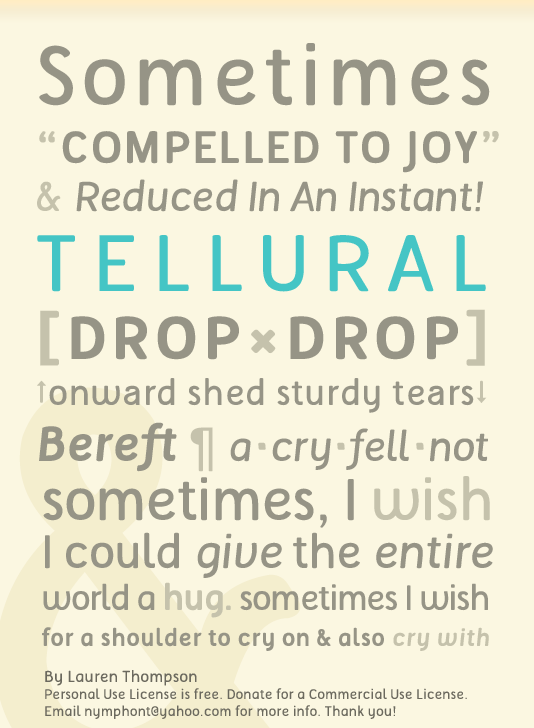
Preview and download Tellural Font. Created by Lauren Thompson in Basic Sans serif styles with Free for personal use license.
Font name: | Tellural |
Author: | Lauren Thompson |
Note by Lauren Thompson | |
This font is free for personal use, can be used commercially with a donation. Contains many additional characters including Greek and Cyrillic letters. Also comes in an "alternate" version with a different lowercase letter a that may be easier to differentiate from other characters for convenience. I hope you like it! |